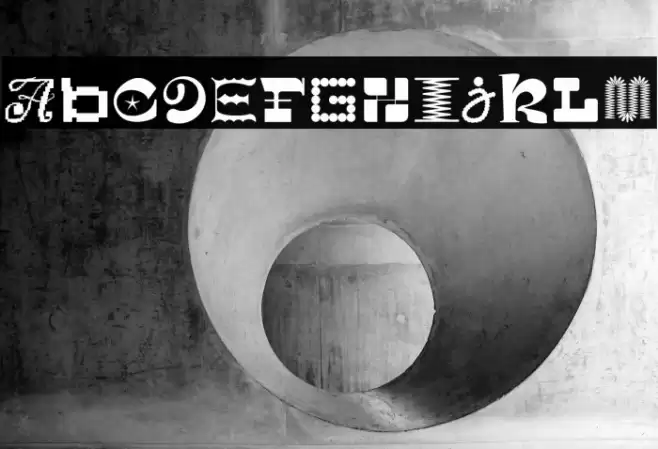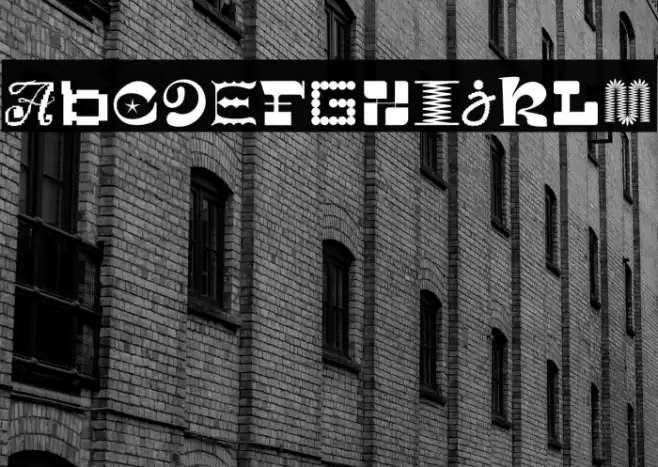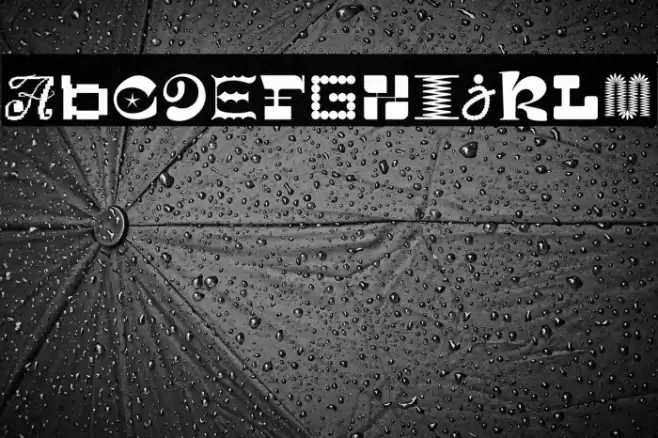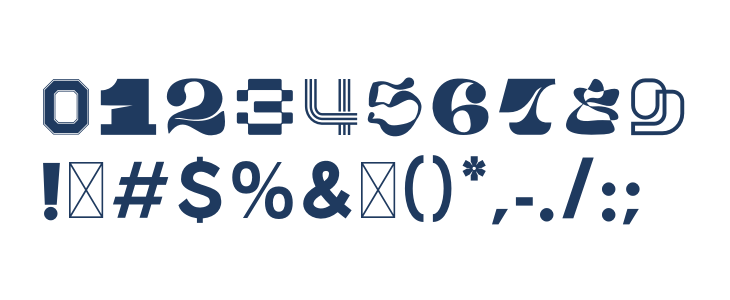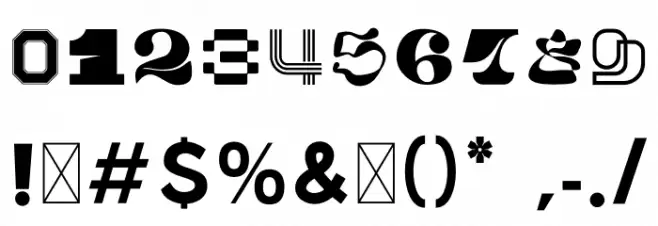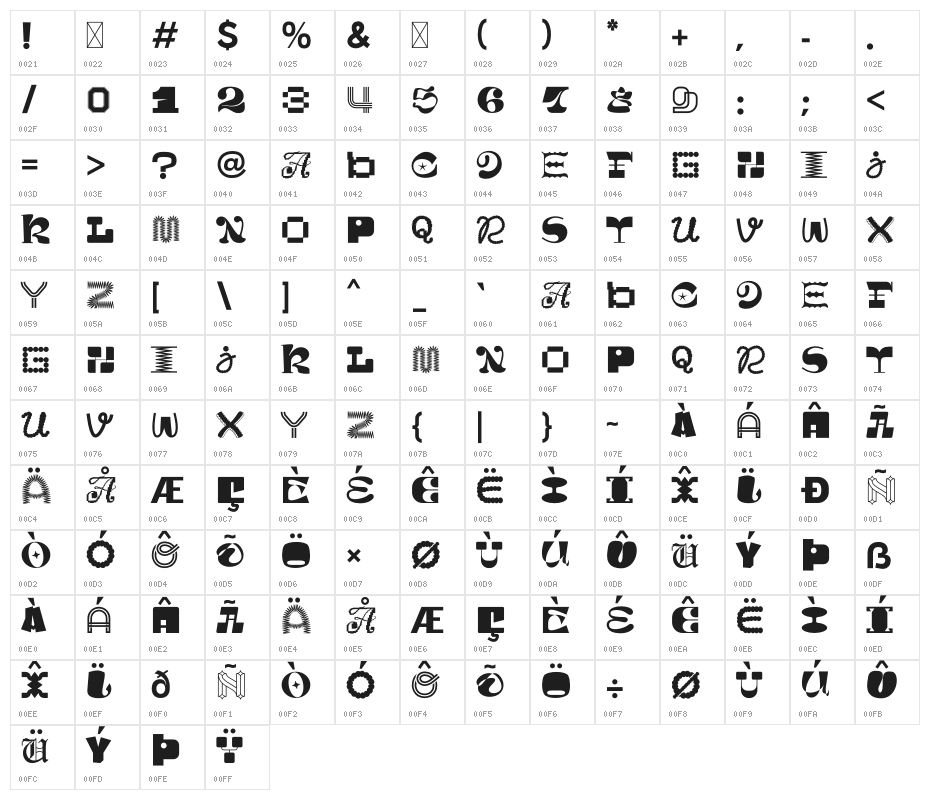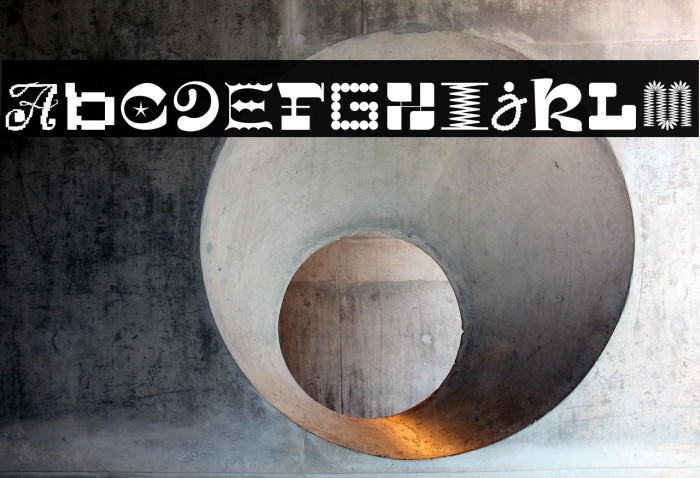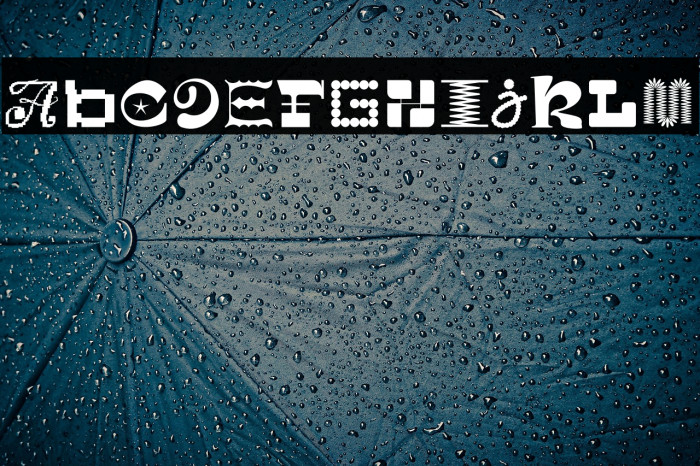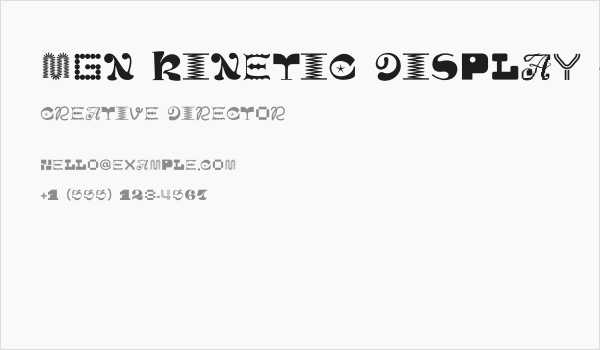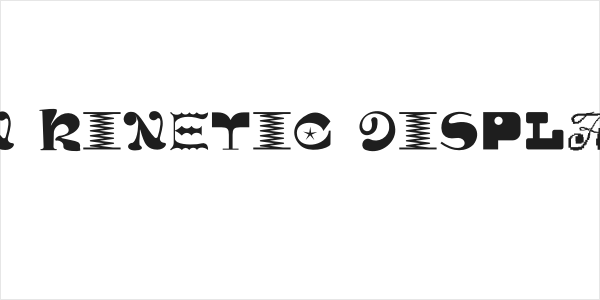
MGN Kinetic Display 7 Font
MGN Kinetic Display 7 Description
This font is a bold and eclectic display typeface that combines a variety of design elements, creating a dynamic and eye-catching appearance. Each character is uniquely styled, incorporating geometric shapes, patterns, and decorative motifs. The uppercase letters feature a mix of solid and outlined forms, with some characters having intricate details like stars, stripes, and dots. The lowercase letters maintain this playful and varied aesthetic, ensuring consistency across the typeface. Numbers and special characters continue the theme, offering a cohesive yet diverse set of symbols. This font is perfect for projects that require a strong visual impact and a creative touch.
A bold, eclectic display typeface with diverse decorative elements from Uncategorized fonts.
- Font: MGN Kinetic Display 7
- Proposed Projects: Ideal for posters, branding, album covers, and creative advertising.